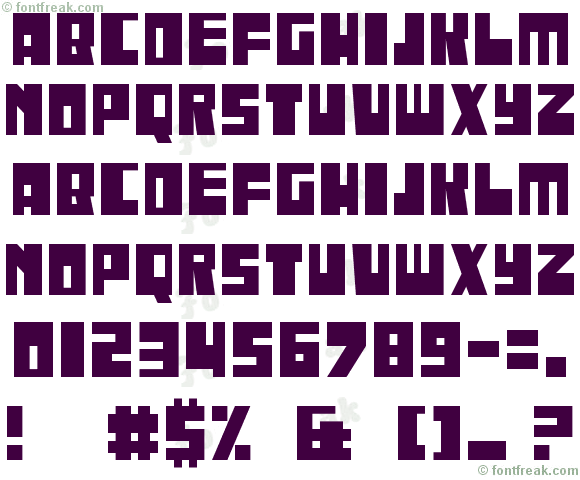
Iregula
Iregula, designed by Andrew McCluskey in 2014, is a striking sans-serif typeface that captures attention with its unique character and modern appeal. This font features a balanced stroke weight that gives it an approachable yet sophisticated look. The clean lines and consistent spacing contribute to its readability, making it an ideal choice for various applications. Iregula's understated elegance is complemented by subtle decorative elements that add a touch of personality without overwhelming the design.
This versatile typeface excels in a multitude of use cases. It is particularly well-suited for branding projects, where a fresh and contemporary aesthetic can help small businesses stand out in a crowded market. Additionally, Iregula shines in digital and print mediums such as website headings, social media graphics, and promotional materials. Its modern design makes it an excellent fit for movie posters, where bold typography can convey excitement and intrigue. Furthermore, Iregula is a great choice for restaurant menus, providing clear legibility while enhancing the overall dining experience with its stylish flair.
The target audience for Iregula includes graphic designers looking to elevate their projects with a unique typeface, small business owners aiming to establish a memorable brand identity, and content creators who want to capture their audience's attention. The font's freeware license ensures that it is accessible to everyone, allowing for creative exploration without financial constraints.
What sets the Iregula font apart is its ability to blend simplicity with distinctive style. It offers a refreshing alternative to more traditional typefaces, making it an excellent option for those seeking a modern touch in their designs. With its unique characteristics and versatility, the Iregula font free download is a valuable addition to any designer's toolkit.